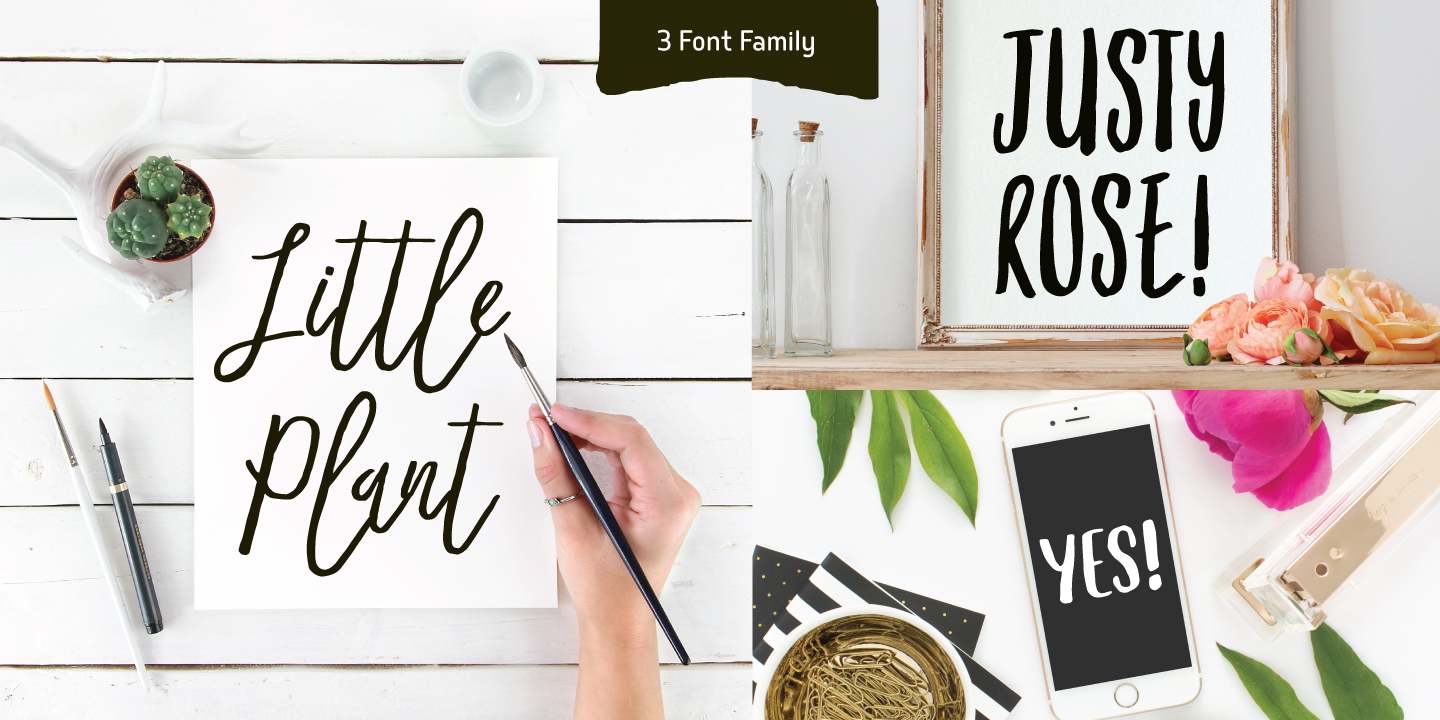
Mates Malty Font is a warm and wonderfully inviting typeface, perfectly suited for projects that aim to evoke a sense of camaraderie, comfort, and a rich, artisanal charm. Imagine it gracing the labels of craft beer or gourmet coffee, adding a cozy and friendly touch to pub or cafe branding, or bringing a personal and inviting personality to food blogs and community event posters. It's also an excellent choice for crafting distinctive menus for local eateries, designing unique labels for homemade goods, or infusing social media graphics and marketing materials with a genuine, welcoming vibe. If you're looking to convey authenticity, togetherness, and an undeniable sense of comforting quality, Mates Malty Font is an outstanding selection.
What makes Mates Malty Font so exciting? It’s its unique ability to combine a fluid, often handcrafted or brush-like aesthetic with a rich, "malty" warmth, making it both visually appealing and highly practical for diverse applications. This font often features soft curves, subtle imperfections, and a friendly, unpretentious charm that gives it an immediate sense of inviting accessibility. Despite its informal character, Mates Malty Font is meticulously designed to maintain excellent readability, ensuring your message is communicated clearly and with a warm, engaging tone. Designers will appreciate its versatility in creating designs that feel both intimately personal and professionally charming, making it a go-to choice for brands and projects that aim to connect with their audience through themes of friendship, community, and a welcoming atmosphere.
The Mates Malty Font family is typically designed to showcase a singular, distinctive display or script style that perfectly encapsulates its unique appeal. While it may not feature extensive weight variations like a traditional text font, its strength lies in its inherent personality and often includes stylistic alternates or simple ligatures that enhance its cheerful aesthetic. These subtle details allow Mates Malty Font to maintain its cohesive and heartwarming look across various applications, from inviting e-commerce banners for artisanal goods to charming personal correspondence. Discover the delightful possibilities with Mates Malty Font Free Download and infuse your designs with an irresistible, comforting charm.